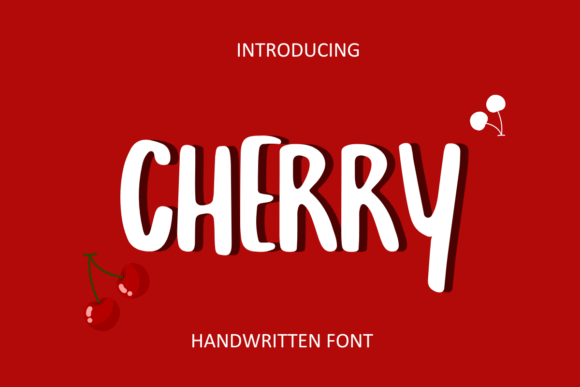
Get Ready to Add a Pop of Personality to Your Designs
You know that feeling when you’re brainstorming ideas for a new project and suddenly, a spark of creativity hits you? The excitement is palpable, and you can’t wait to bring your vision to life. For designers, moments like these are what make the job truly rewarding.
One of the key elements that can elevate a design from ordinary to extraordinary is the right font. And that’s where the Cherry Font comes in – a fun and quirky handwritten font that’s perfect for all your festive projects. With its playful flair, the Cherry Font is a valuable addition to any designer’s toolkit, allowing you to add a personal touch to your designs and make them truly stand out.
Key Features of Cherry Font
- Font Family: Cherry Font is a sans-serif font family that offers a modern and sleek look.
- Unique Characteristics: Features a unique blend of geometric and organic shapes, giving it a distinctive and eye-catching look.
Cherry Font Review
As a designer, I’ve had the chance to play around with the Cherry Font, and I’m excited to share my honest thoughts on this charming sans-serif font.
- Cute and playful: Cherry Font is perfect for projects that need a touch of whimsy and fun.
- High legibility: Despite its playful nature, the font is still easy to read and understand, making it great for body text.
- Customizable: Cherry Font comes with various weights and styles, allowing designers to create a consistent look across different elements.
- Not ideal for serious or formal projects: The playful nature of the font may not be suitable for projects that require a more professional tone.
- Not as versatile as other fonts: Cherry Font may not be the best choice for projects that require a lot of creative experimentation or complex typography.
Overall, I think Cherry Font is a great addition to any designer’s toolkit. While it may have its limitations, it’s a versatile and fun font that’s perfect for projects that need a touch of personality.
Getting the Most Out of the Cherry Font
To get the most out of the Cherry font, consider the following tips:
Use the Cherry font for titles and headings to create a bold and eye-catching effect.
Pair the Cherry font with a clean and simple font for body text to create a balanced and readable design.
Experiment with different font sizes and styles to create a unique and visually appealing look.
The Cherry font is commonly used in:
Designing logos and branding materials.
Creating
Alternatives to Cherry Font for Designers
Comparison to Cherry Font: While Cherry Font has a more modern feel, Playfair Display offers a classic, vintage look that’s perfect for luxury brands and high-end designs.
Comparison to Cherry Font: Great Vibes has a more relaxed, handwritten feel compared to Cherry Font’s sleek, modern look.